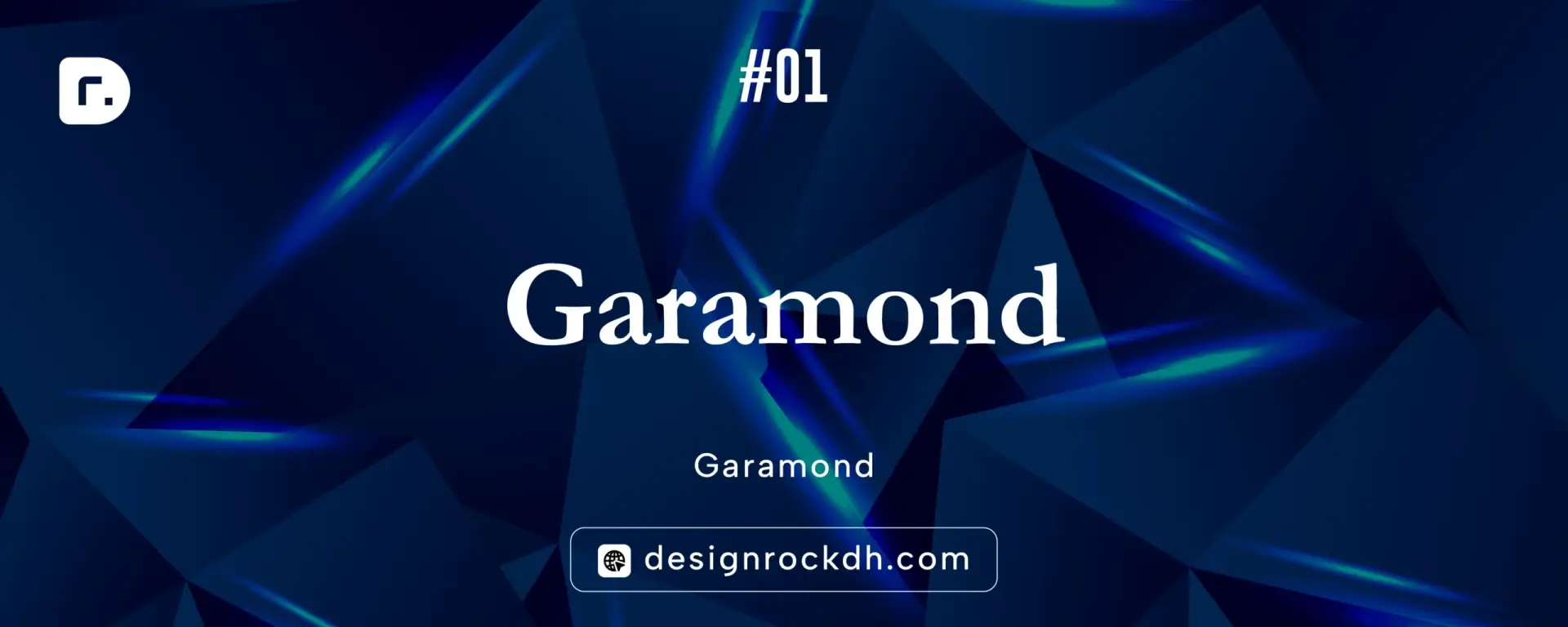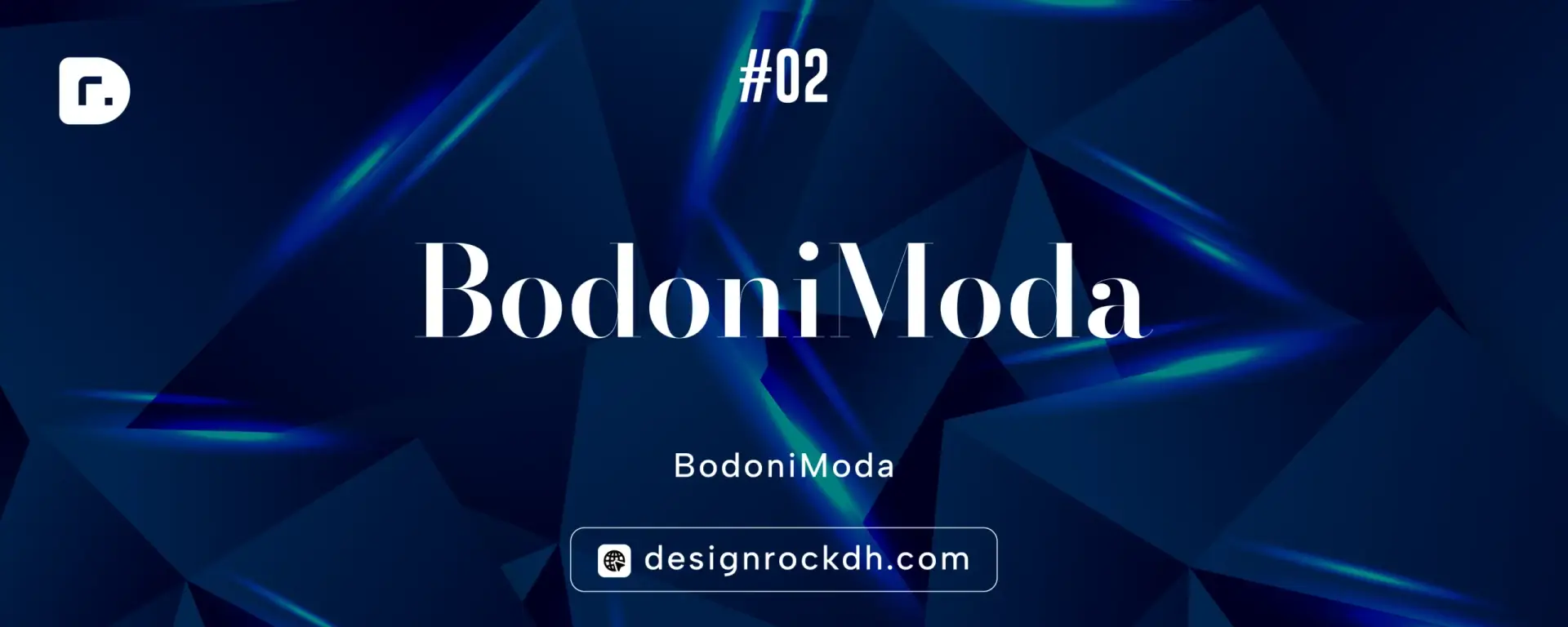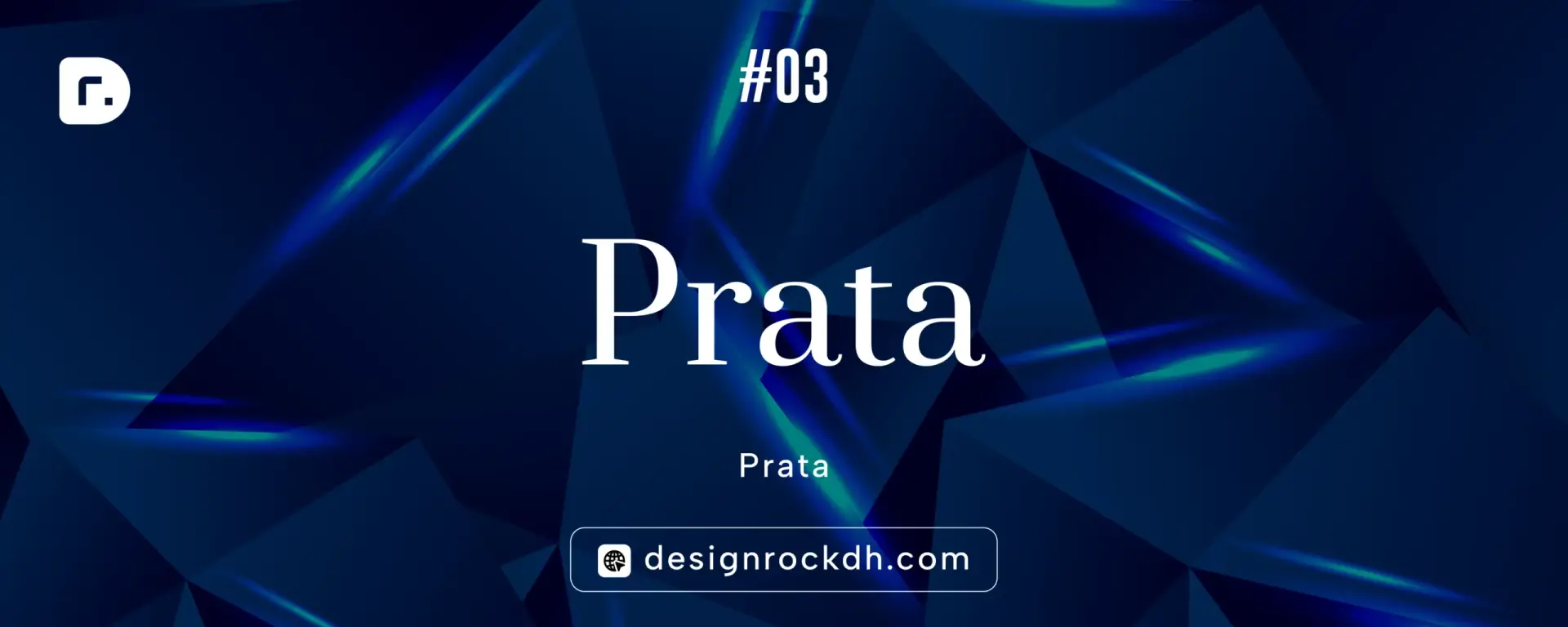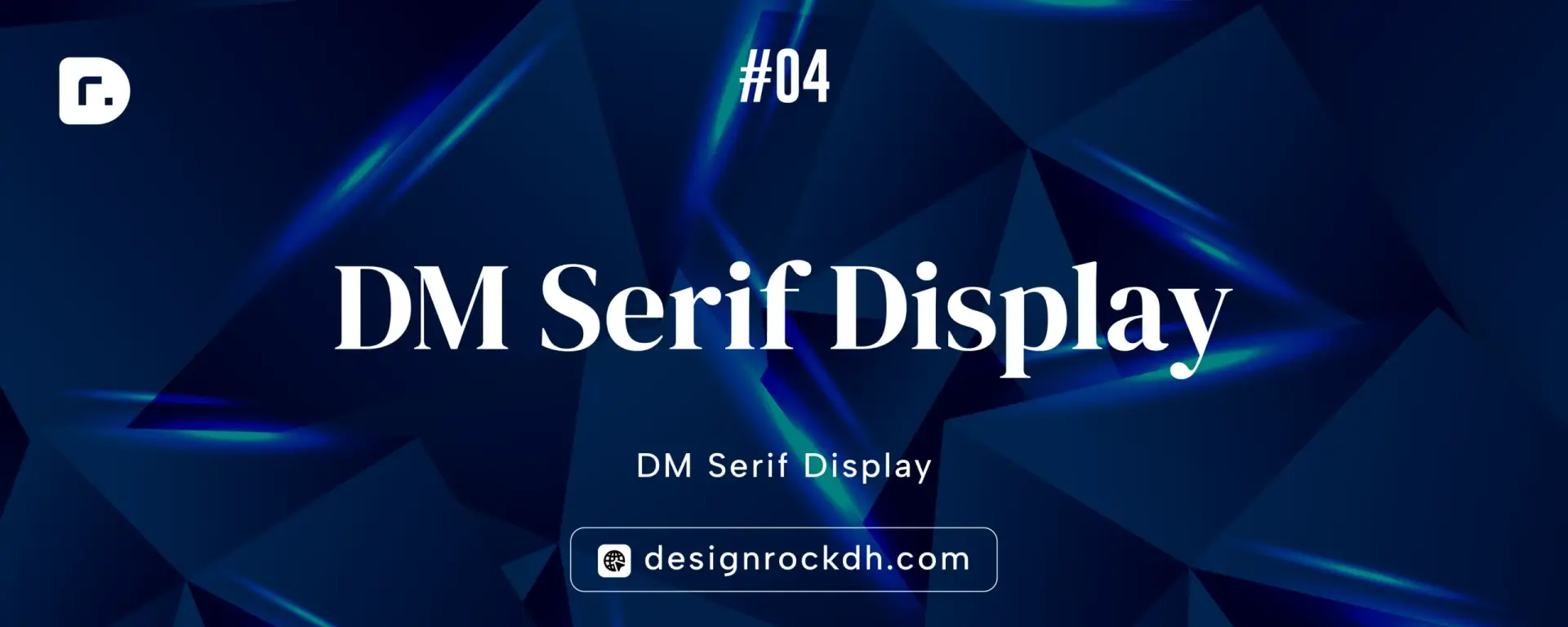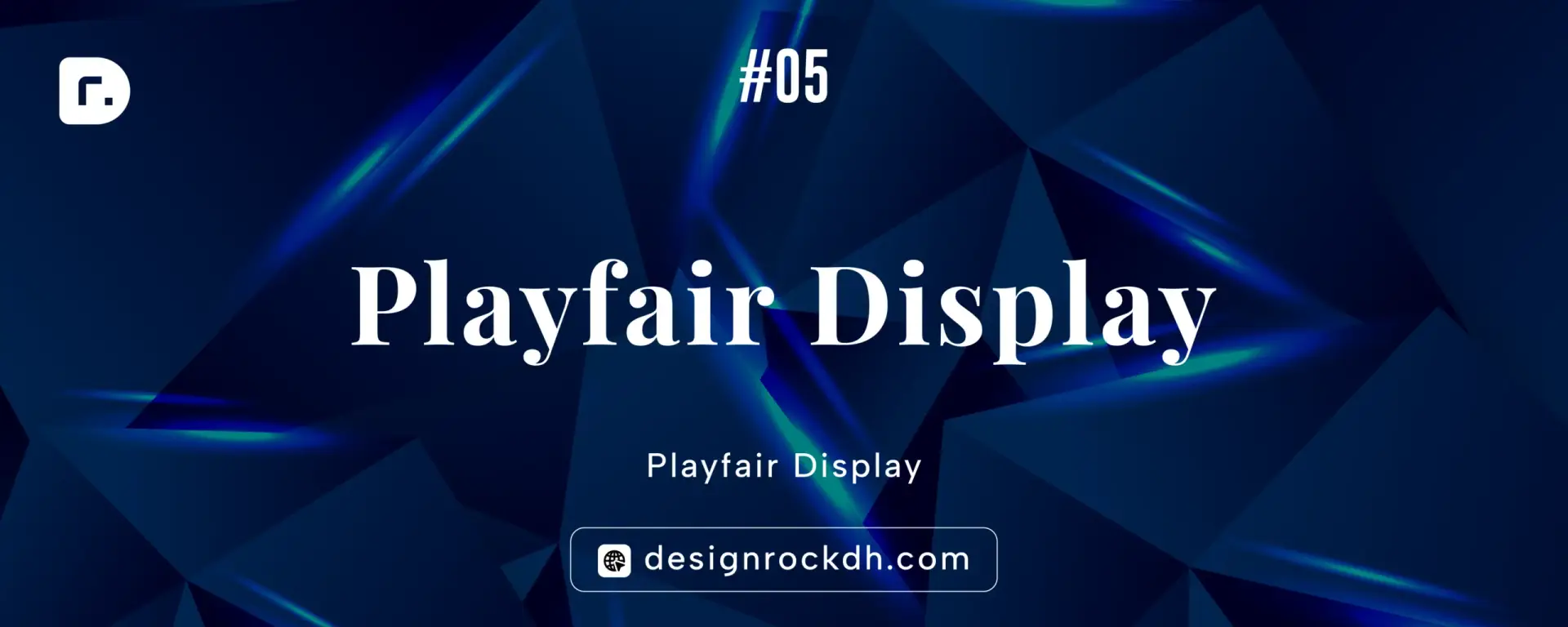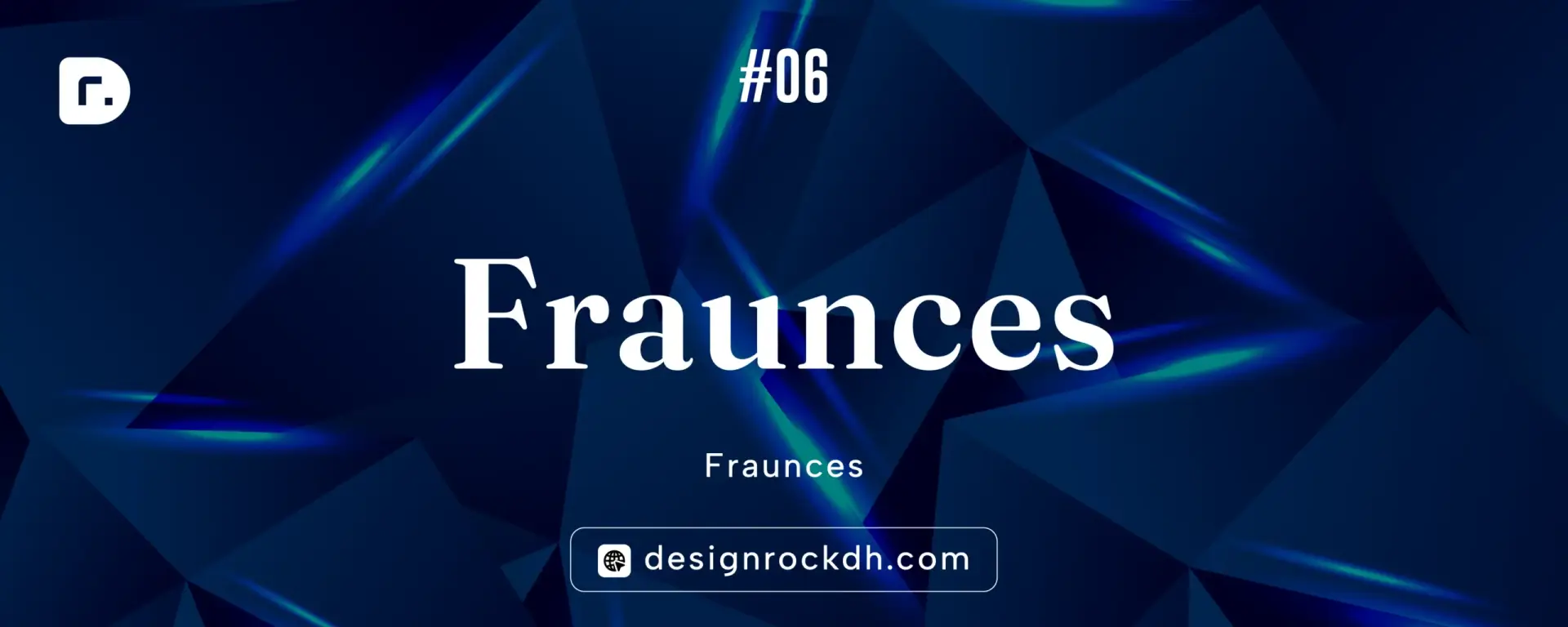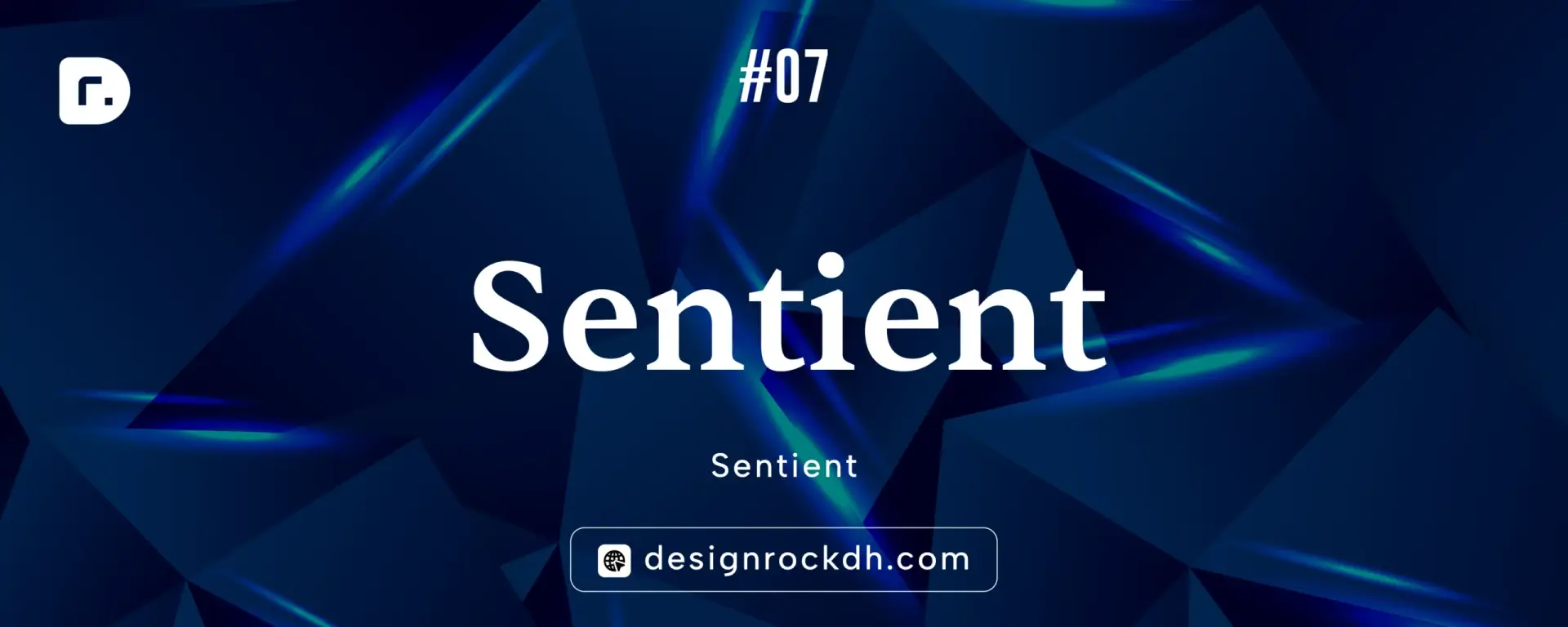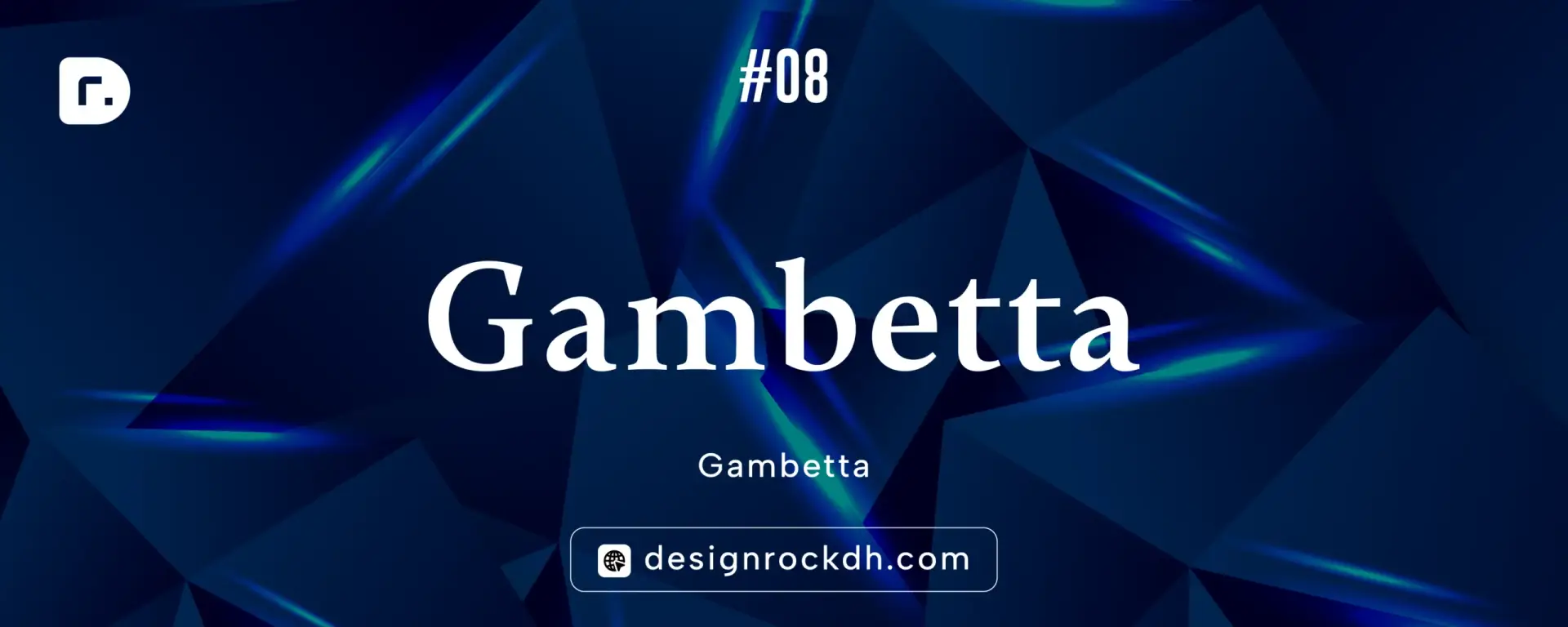
8 Free Luxury Fonts for Elegant Logos, Branding & Premium Design (2026 Guide)
Luxury typography instantly communicates elegance, sophistication, and premium quality. Whether you’re designing a fashion brand, jewelry logo, cosmetics packaging, wedding invitation, or high-end website, choosing the right font can elevate your entire design.
The good news? You don’t need to spend hundreds of dollars on premium typefaces. Many beautifully crafted luxury fonts are completely free for personal and commercial projects.
In this guide, we’ve handpicked 8 of the best free luxury fonts that designers, branding experts, and creative professionals love. Each font includes an overview, best use cases, font pairing ideas, and an official download link.
If you’re looking for elegant typography that gives your projects a premium feel without the price tag, this list is for you.
Why Luxury Fonts Matter
Typography is often the first thing people notice about a brand. Luxury brands carefully choose fonts that create feelings of exclusivity, trust, refinement, and timeless beauty.
A luxury font can help your design:
• Build a premium brand identity
• Increase perceived product value
• Improve logo recognition
• Create elegant packaging
• Enhance editorial layouts
• Make websites feel more sophisticated
Many world-famous luxury brands rely on refined serif typography because it conveys heritage, craftsmanship, and professionalism.
What Makes a Font Look Luxurious?
Luxury fonts usually share several design characteristics:
• High contrast between thick and thin strokes
• Elegant serif details
• Balanced proportions
• Spacious letterforms
• Refined curves
• Excellent readability
• Minimal decorative elements
The best luxury fonts feel timeless rather than trendy.
1. Cormorant Garamond
Style: Elegant Serif
Cormorant Garamond is one of the most beautiful free serif fonts available today. Inspired by classic Garamond typefaces, it offers refined letterforms with modern improvements.
Its thin strokes and graceful curves make it perfect for luxury branding and editorial design.
Best For
• Fashion logos
• Luxury branding
• Beauty products
• Wedding invitations
• Editorial magazines
Font Pairing
• Cormorant Garamond + Inter
• Cormorant Garamond + Source Sans Pro
• Cormorant Garamond + Manrope
Why Designers Love It
• Sophisticated appearance
• Multiple font weights
• Excellent readability
• Professional finish
2. Bodoni Moda
Style: Modern Luxury Serif
Bodoni Moda is inspired by the famous Bodoni family and features dramatic thick-and-thin contrasts that instantly communicate luxury.
This font has become a favorite among fashion magazines and premium branding projects.
Best For
• Fashion brands
• Perfume packaging
• Jewelry logos
• Editorial headlines
• High-end websites
Font Pairing
• Bodoni Moda + Montserrat
• Bodoni Moda + Inter
• Bodoni Moda + Lato
Why Designers Love It
• High-fashion appearance
• Clean luxury style
• Elegant headlines
• Premium branding
3. Prata
Style: Classic Luxury Serif
Prata is a beautifully balanced serif font known for its sophisticated curves and timeless elegance.
It performs exceptionally well in luxury branding where readability and style are equally important.
Best For
• Premium logos
• Restaurant branding
• Boutique stores
• Hotel branding
• Luxury packaging
Font Pairing
• Prata + Open Sans
• Prata + Nunito Sans
• Prata + Work Sans
Why Designers Love It
• Elegant proportions
• Beautiful uppercase letters
• Premium personality
• Excellent readability
4. DM Serif Display
Style: Editorial Serif
DM Serif Display combines classic elegance with contemporary style.
Its strong personality makes it an excellent choice for luxury headlines while remaining readable.
Best For
• Magazine covers
• Fashion branding
• Cosmetics
• Website hero sections
• Luxury advertisements
Font Pairing
• DM Serif Display + Inter
• DM Serif Display + Poppins
• DM Serif Display + Source Sans Pro
Why Designers Love It
• Stylish curves
• Premium editorial feel
• High readability
• Excellent display font
5. Playfair Display
Style: Transitional Serif
Playfair Display has become one of the most recognizable free luxury fonts because of its graceful letterforms and excellent readability.
It works beautifully across print and digital media.